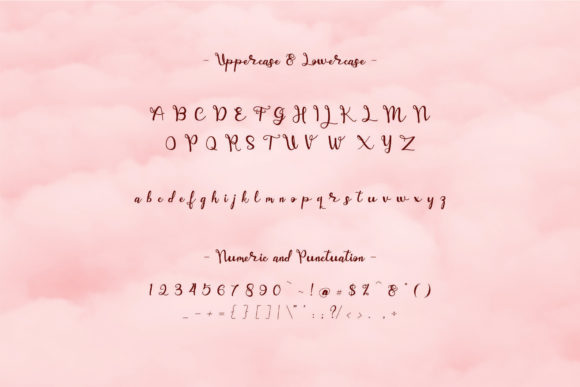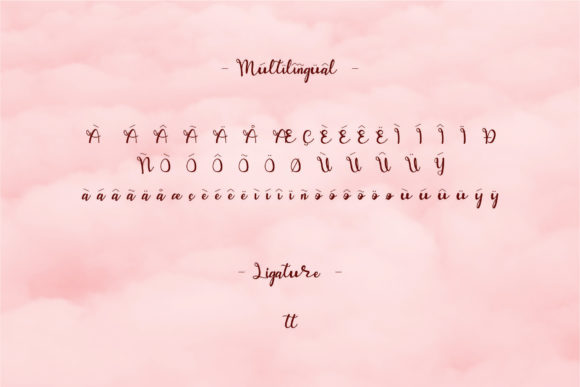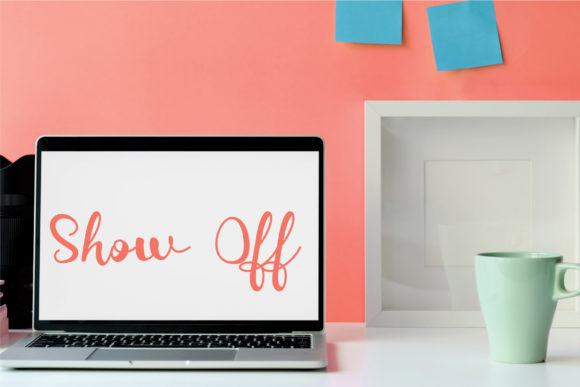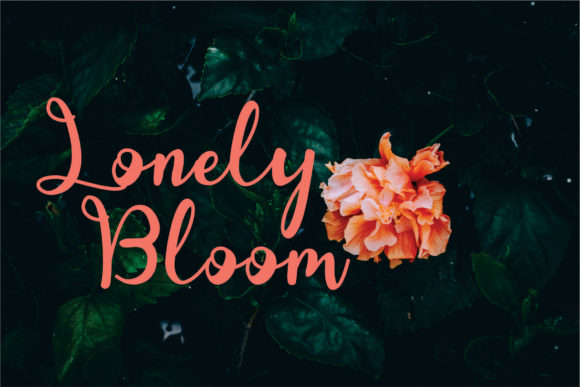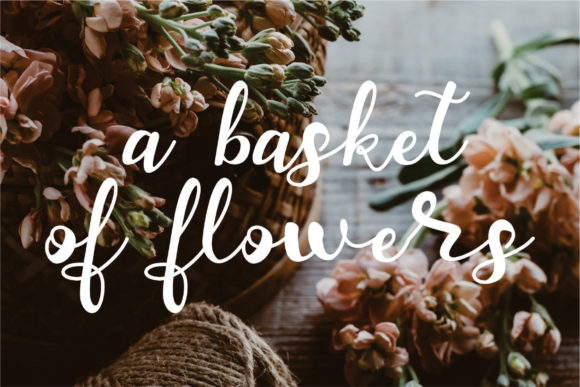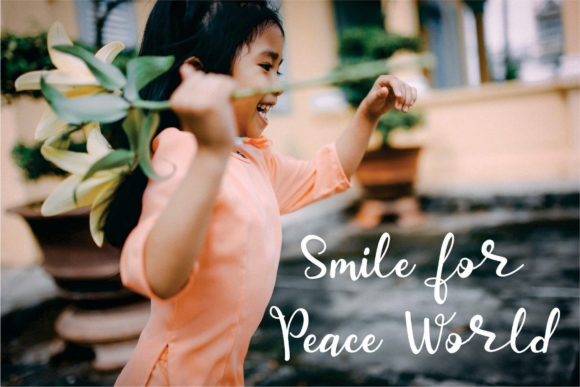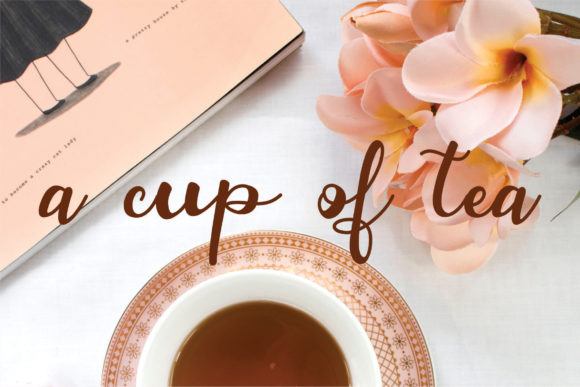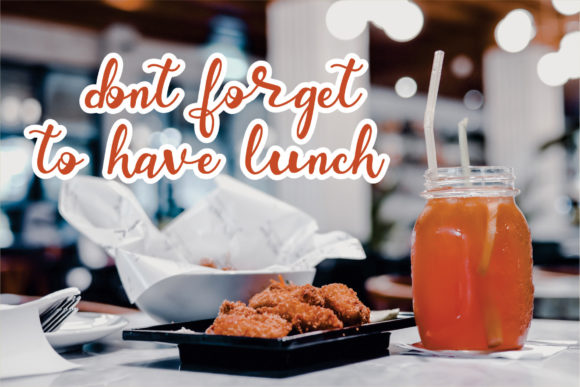
Pamela Font
About Pamela Font
Pamela is a modern handwritten font, created with the help of an outstanding brush pen. Fall in love with its incredibly versatile style and use it to create gorgeous wedding invitations, beautiful stationary art, eye-catching social media posts, and much more!